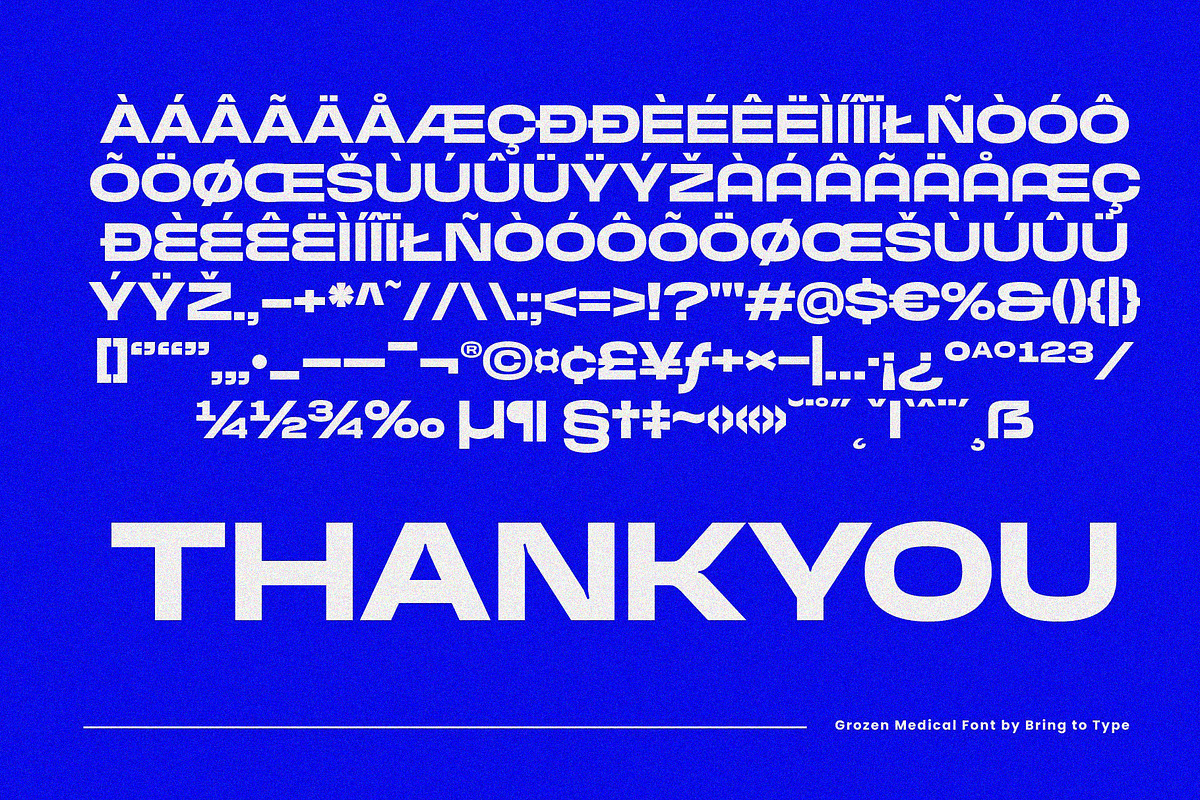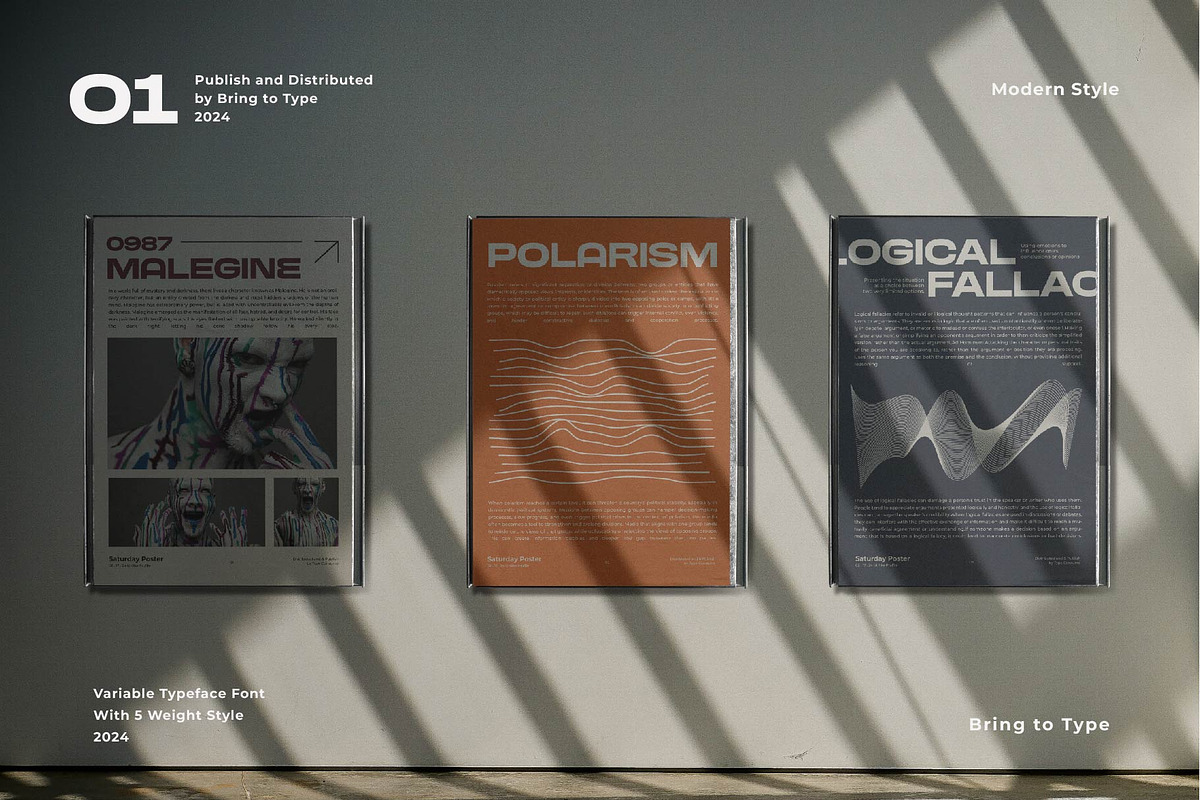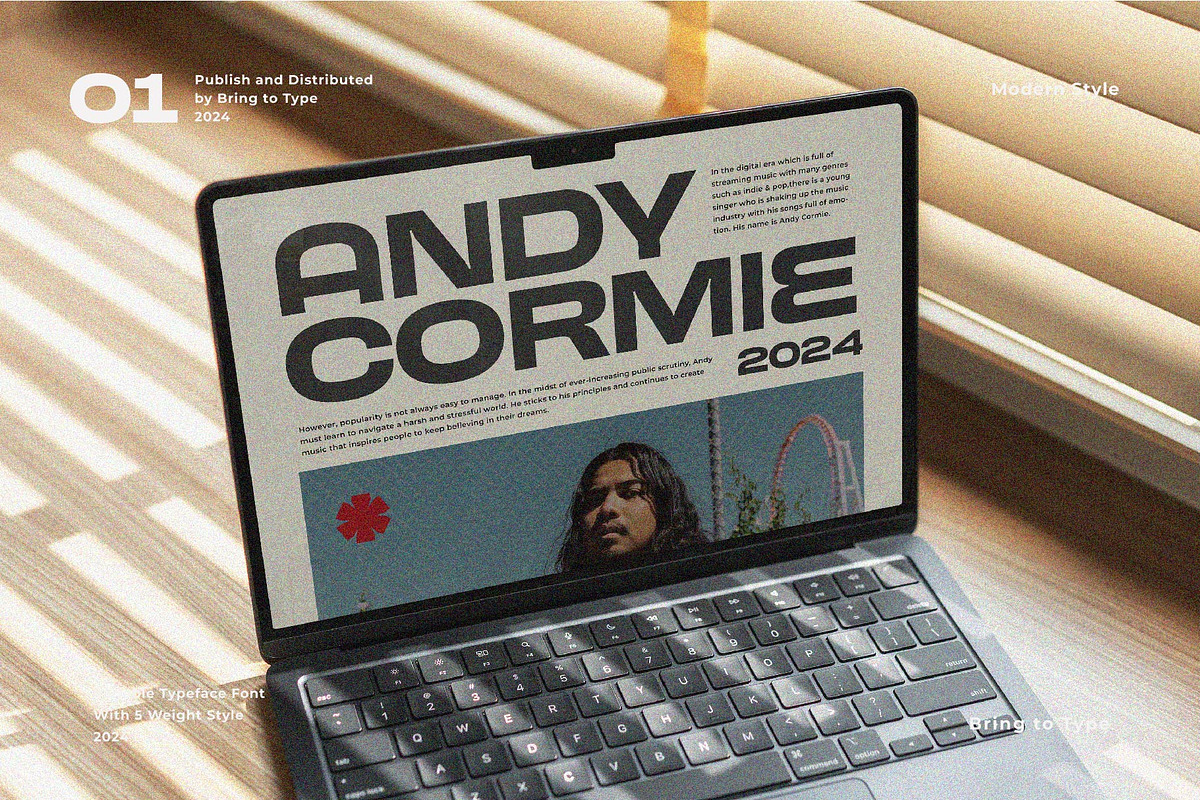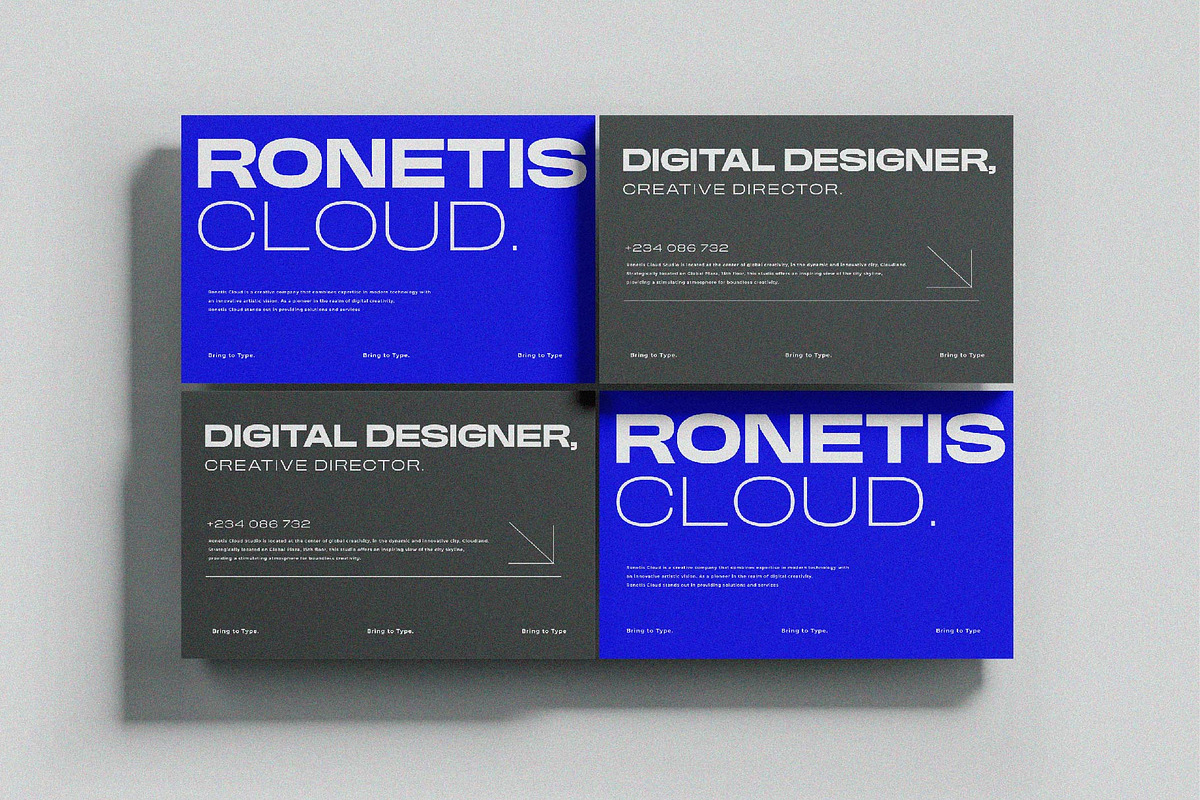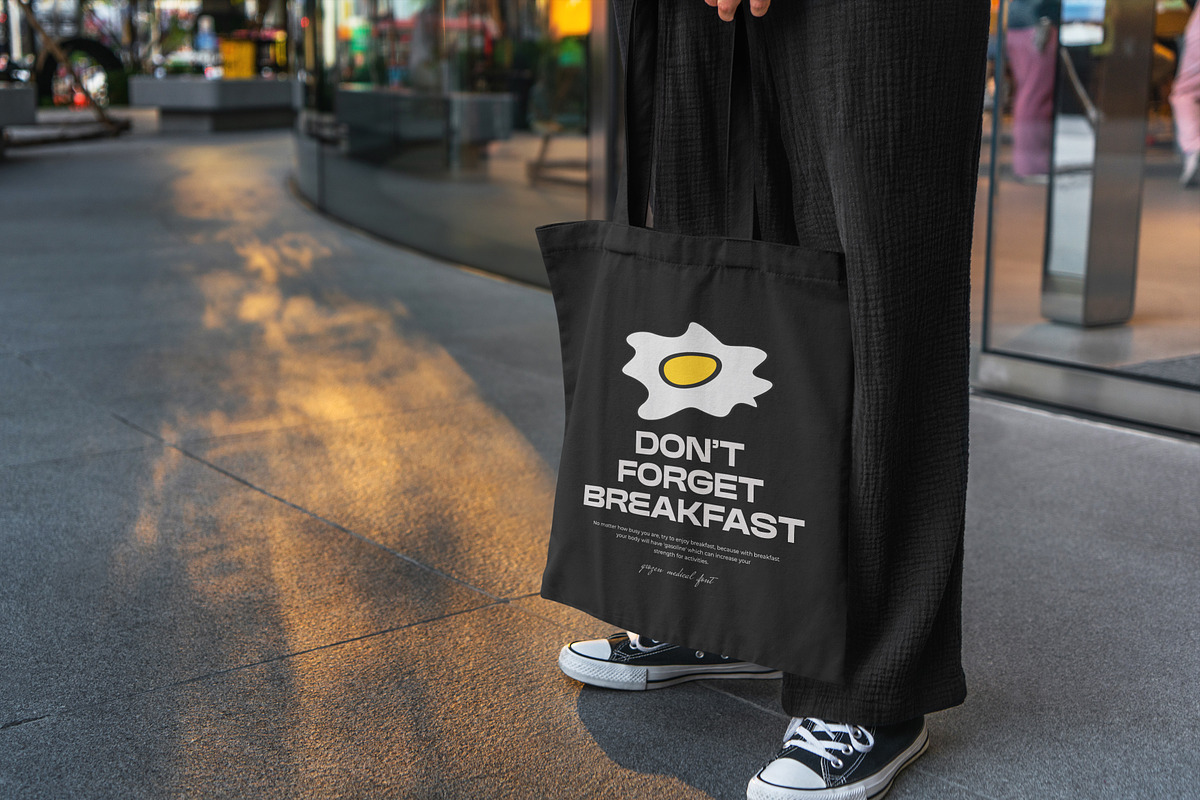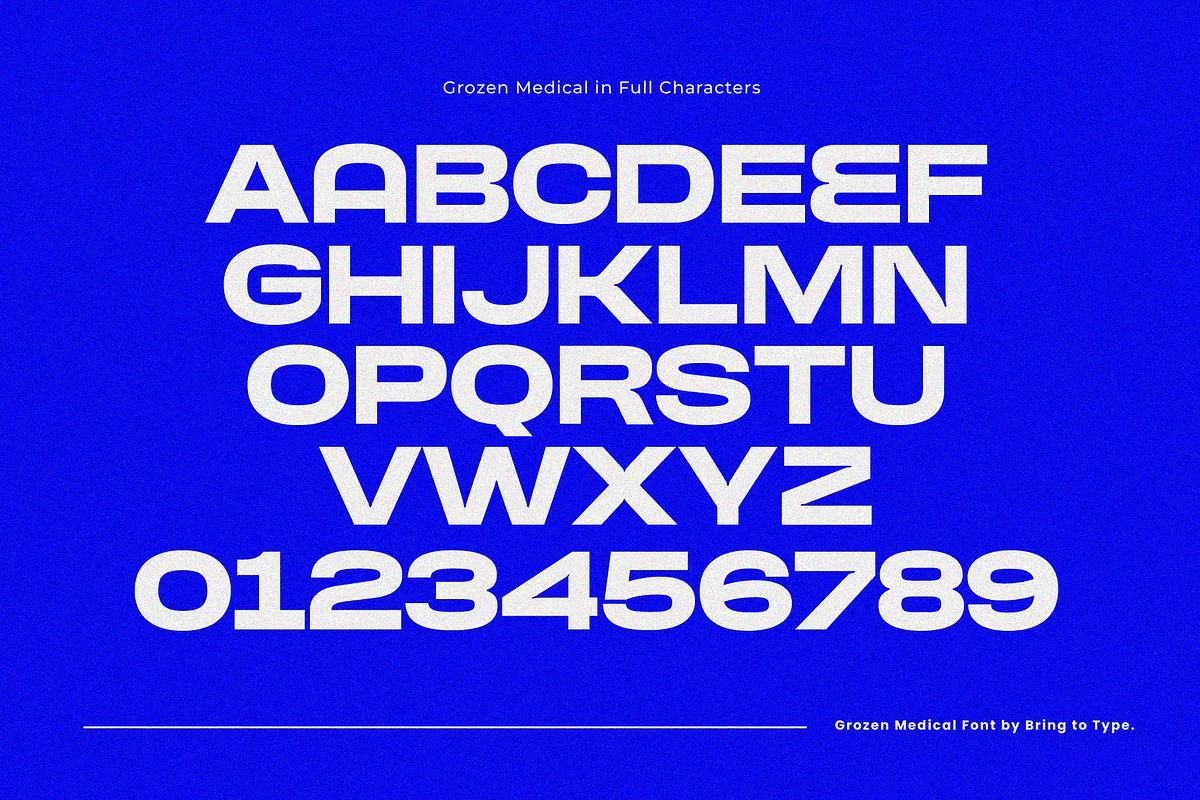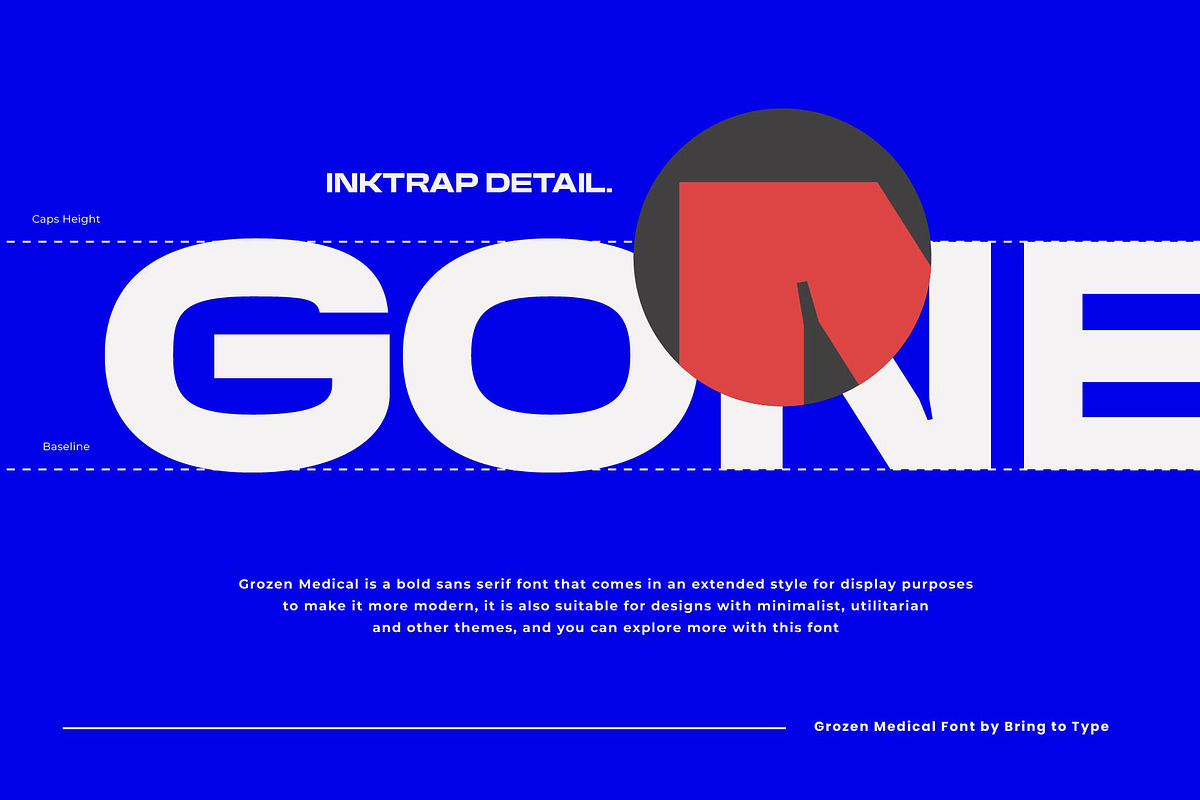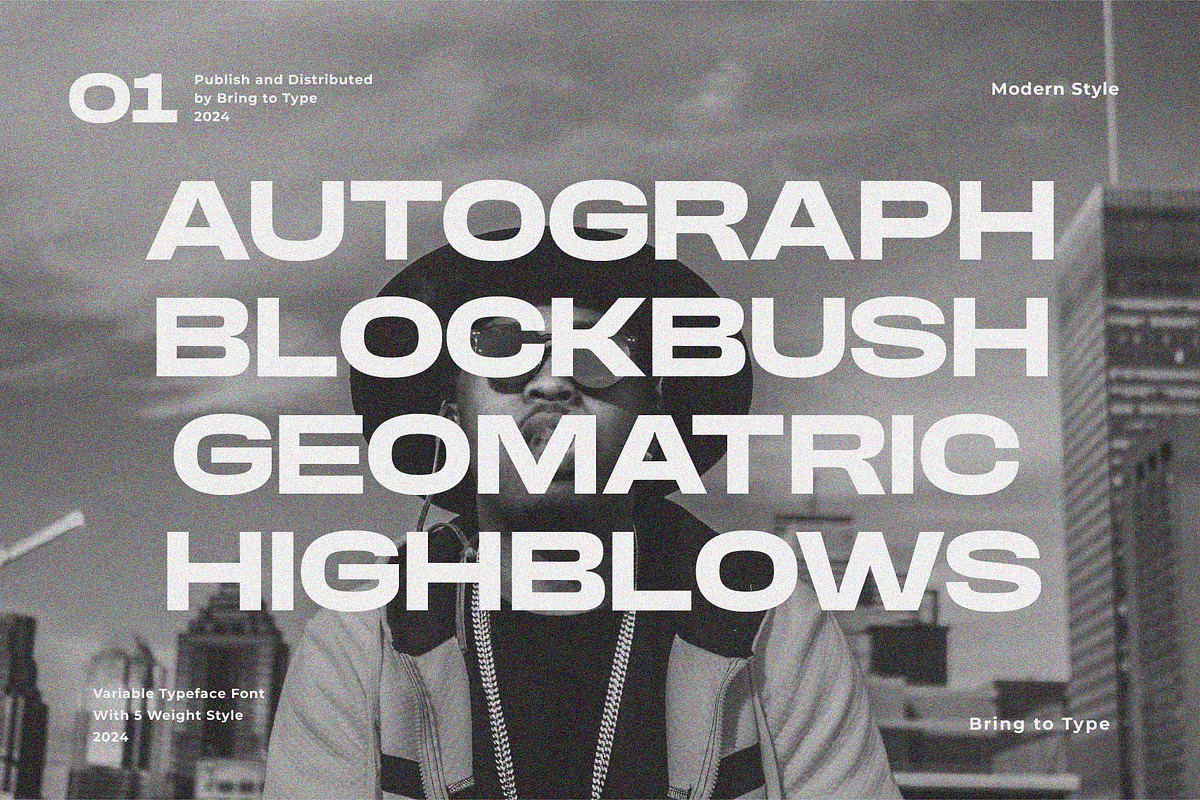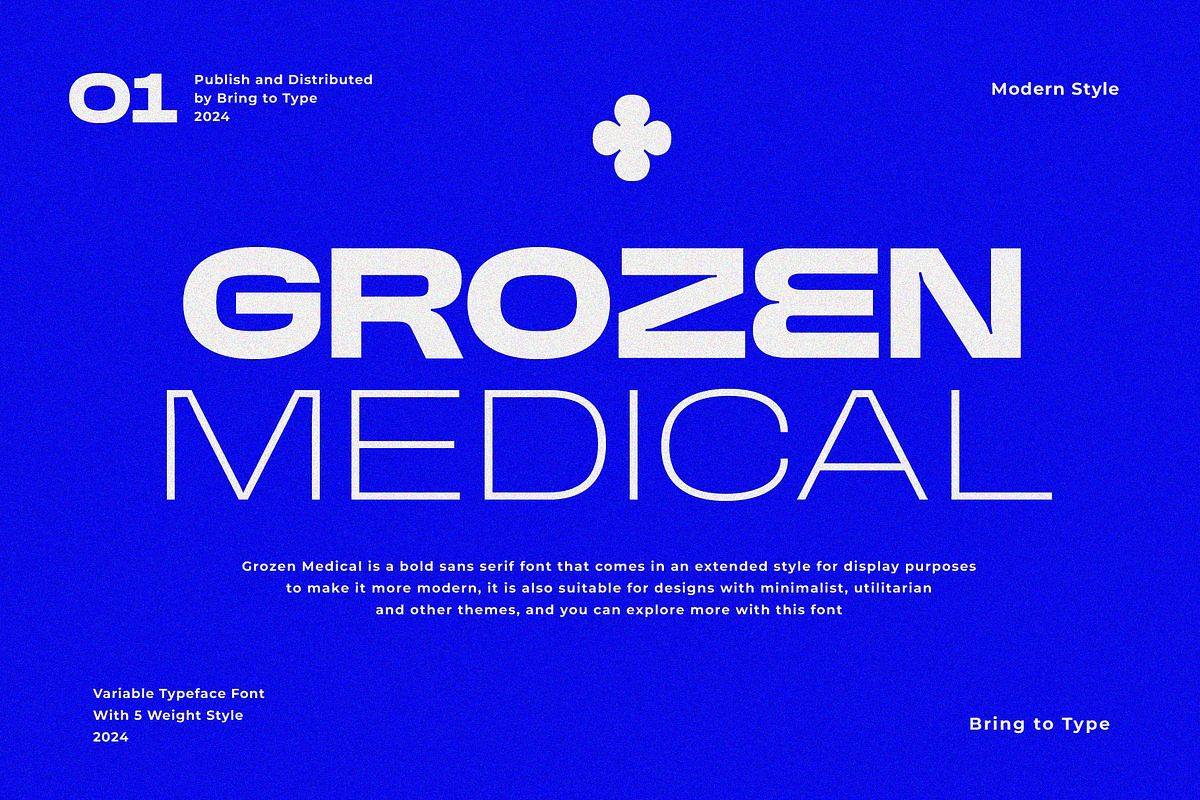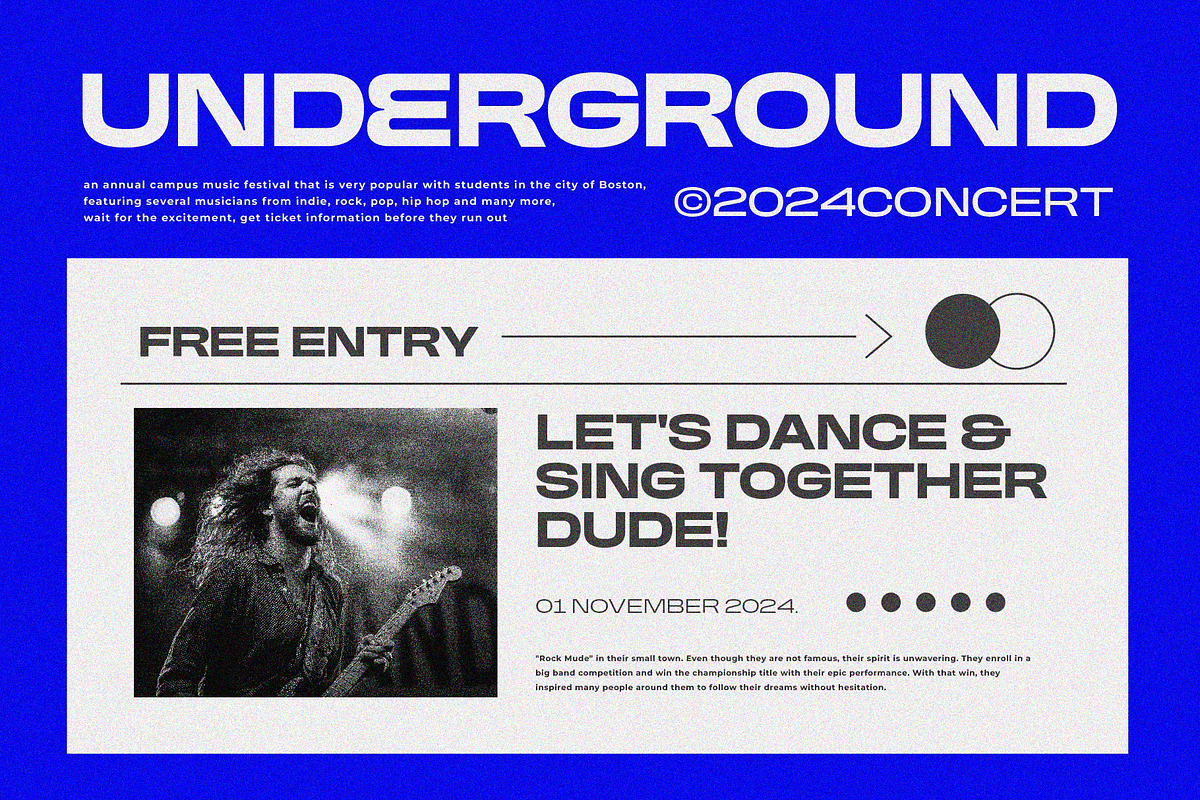
GROZEN MEDICAL - Extended Grotesk
Grozen Medical is a bold sans serif font that comes in an extended style for display purpose to make it more modern, it is also suitable for designs with minimalist, utilitarian and other themes.
GROZEN MEDICAL Features:
All Caps Font
5 Weight Style
Symbols & Punctuation